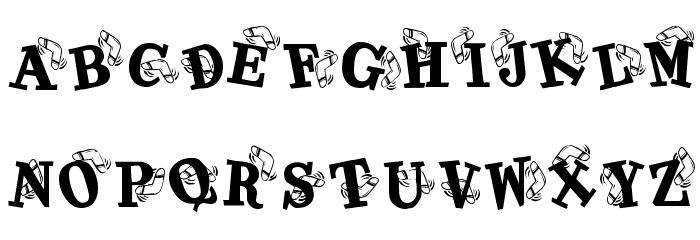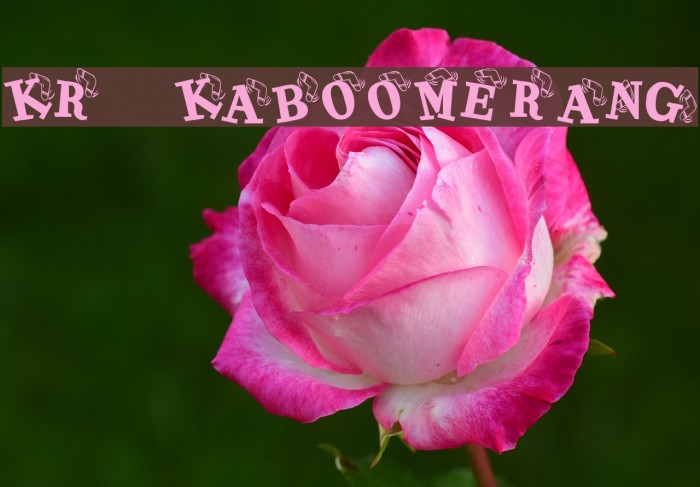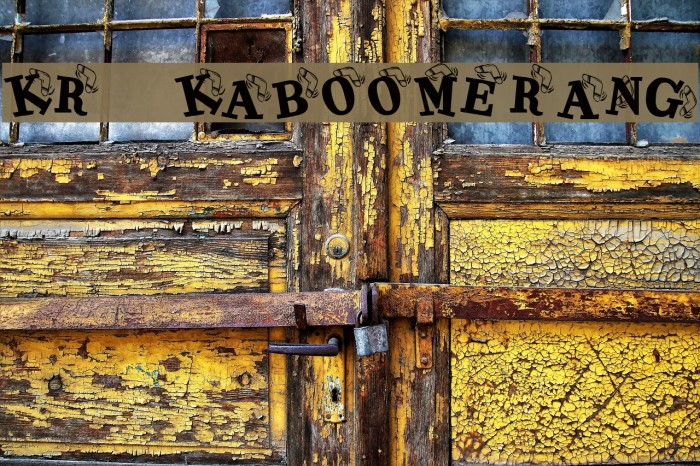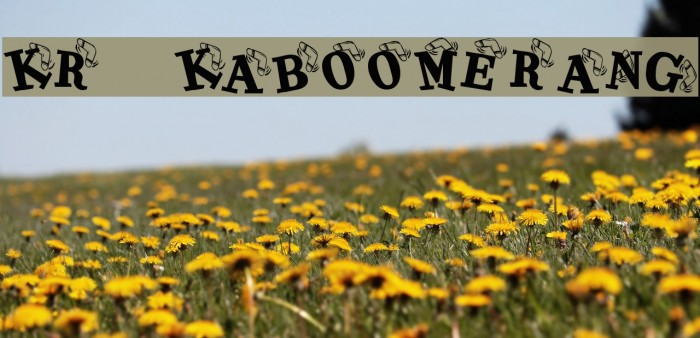
KR Kaboomerang Font
This font features a playful and dynamic design, with each character adorned by a cartoonish hand that appears to be interacting with the letter itself. The letters are bold and have a slightly irregular shape, adding to the whimsical and energetic feel. The hands are positioned in various playful gestures, creating a sense of movement and fun. This font is ideal for projects that require a lively and engaging visual element, such as children's books, comic strips, or playful branding. The boldness of the letters ensures readability while the unique design elements capture attention.
A playful, cartoonish font with bold letters and interactive hand illustrations.
- Overall Style: Playful, Cartoonish, Energetic